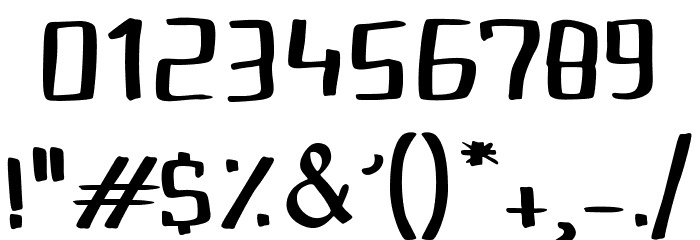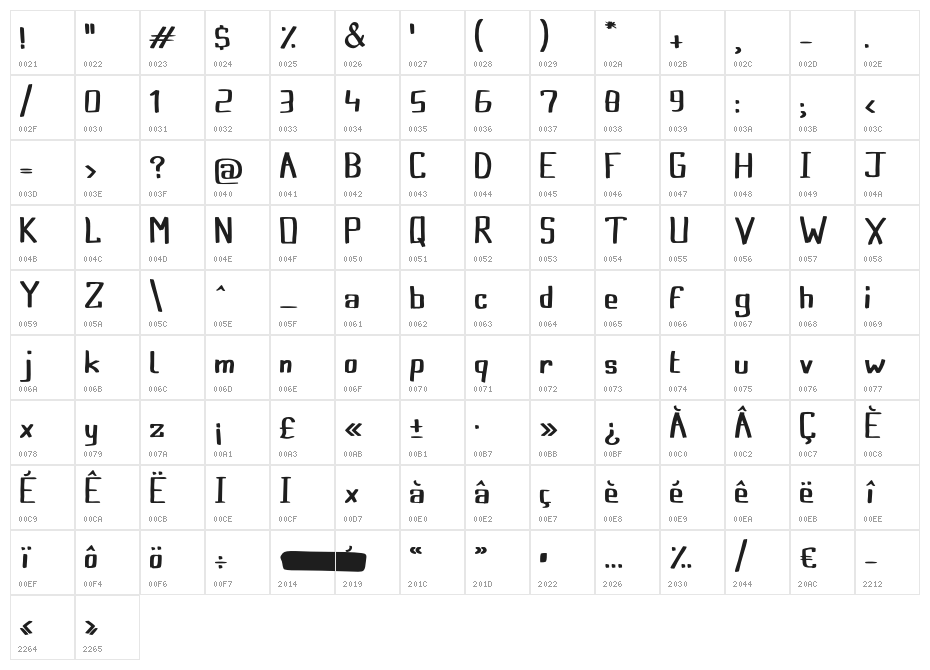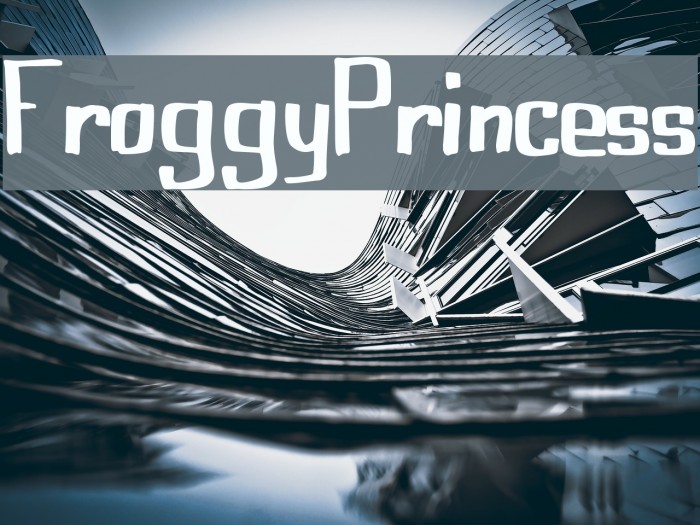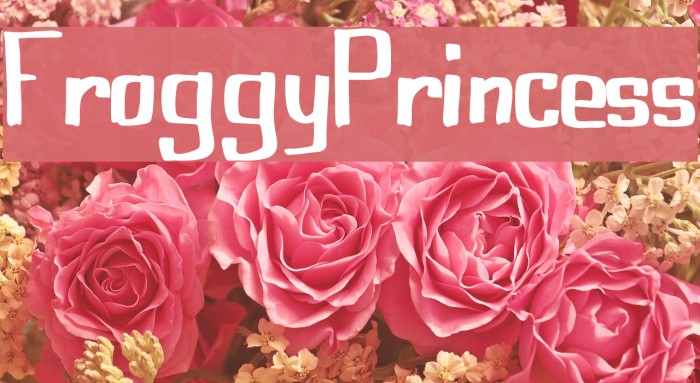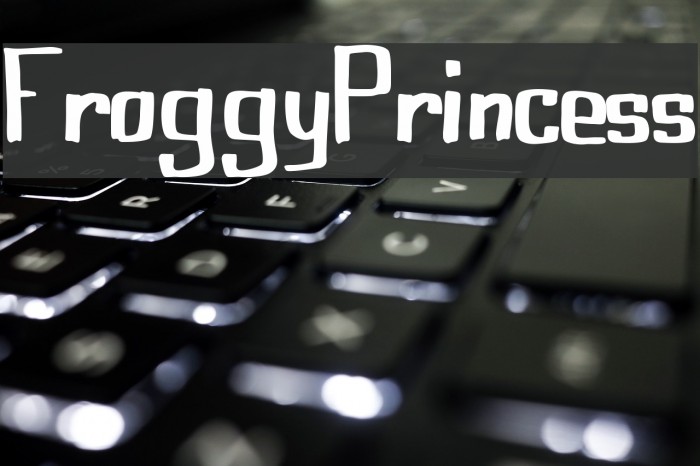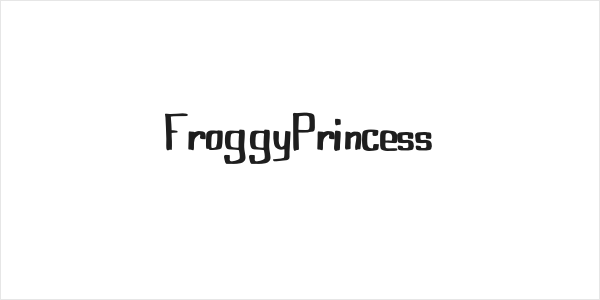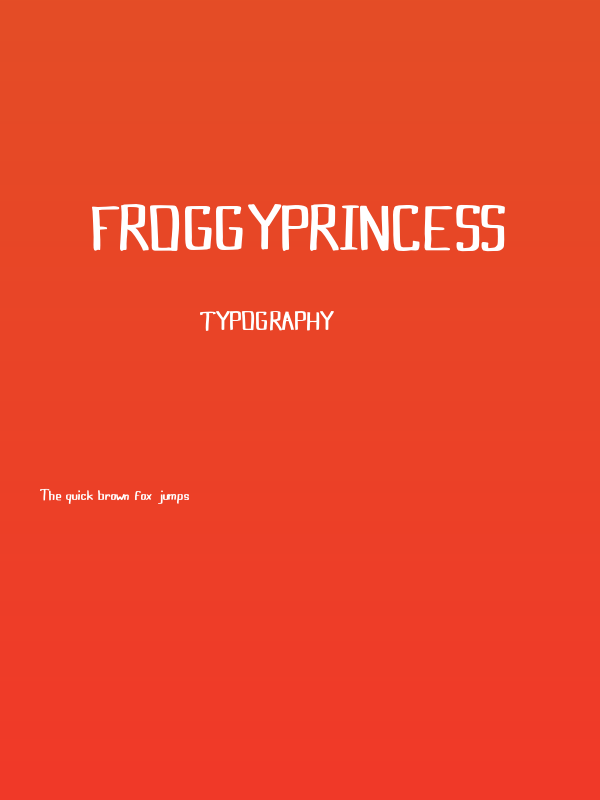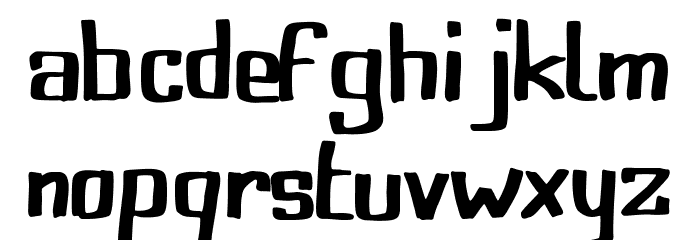
FroggyPrincess Font
FroggyPrincess Description
This playful and whimsical font features a hand-drawn style with irregular, slightly wavy lines that give it a lively and informal appearance. The characters are bold and rounded, with a unique charm that makes them stand out. The uppercase letters maintain a consistent height, while the lowercase letters vary slightly in size, adding to the font's quirky personality. Numbers and special characters follow the same playful design, ensuring a cohesive look across all text elements. This font is perfect for projects that require a fun and engaging aesthetic.